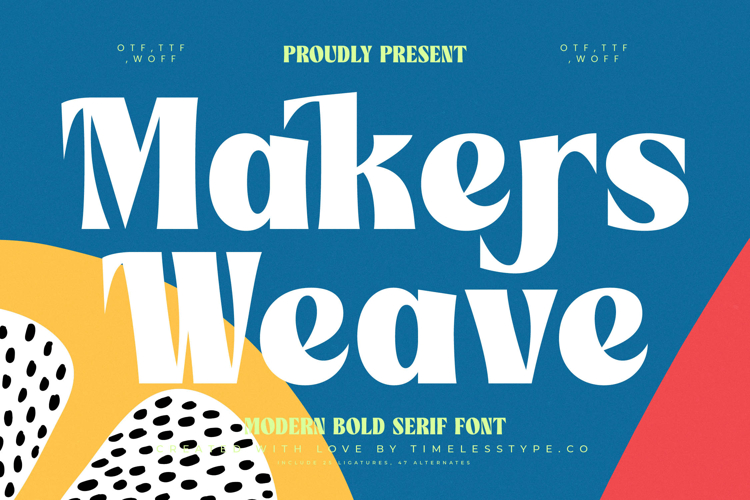
Makers Weave - Modern Bold Serif Font
Makers Weave is a modern bold serif font that combines confident structure with playful design details, making it a versatile typeface for contemporary projects. With its thick strokes, dynamic curves, and striking terminals, it delivers strong visual impact while maintaining a stylish, approachable character. Featuring 25 ligatures and 47 alternates, Makers Weave gives designers creative freedom to craft expressive, unique layouts that avoid repetition and feel custom-made.